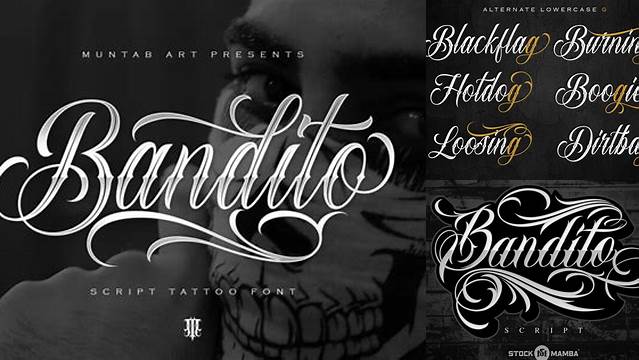
Introduction to Bandito Script Font
Hey guys! Are you on the hunt for a font that screams adventure and boldness? Well, look no further! Today, we’re diving deep into the world of the Bandito Script Font, a typeface that’s been making waves in the design community. This font isn't just another script; it's a statement. Its rugged, hand-drawn feel brings a raw, authentic touch to any project, making it a favorite for designers aiming to capture a sense of freedom and rebellion. Whether you're working on a poster, logo, or even a social media campaign, the Bandito Script Font can add that unique edge you've been searching for. But what exactly makes this font so special? Let’s explore its key features and why it might be the perfect choice for your next creative endeavor. The Bandito Script Font stands out with its dynamic strokes and imperfect lines, giving it a distinctly human touch. Unlike the polished, sterile fonts that dominate much of the digital landscape, Bandito Script Font embraces imperfection, adding character and depth to your text. This font isn't afraid to show its rough edges, making it ideal for projects that need a bit of grit and personality. Think about it: how many fonts do you come across that genuinely feel like they were crafted by hand? That's the magic of Bandito Script. It bridges the gap between digital design and traditional artistry. So, if you're ready to infuse your work with a sense of adventure and authenticity, the Bandito Script Font might just be your new best friend. Keep reading, because we’re about to delve into the nitty-gritty details of what makes this font tick, where you can download it for free, and how you can best use it in your designs. Let’s get started and unleash the Bandito Script Font in your projects! Remember, design is all about expressing yourself, and sometimes, the boldest statements come from the most unexpected places. This font is here to help you make those statements loud and clear.
When you're choosing a font, it's crucial to understand its features and how they align with your project’s needs. The Bandito Script Font has a lot going for it, especially if you're aiming for a look that's both rustic and contemporary. One of the standout features of Bandito Script is its hand-drawn aesthetic. This isn’t your typical polished script font; it has an organic, almost rebellious vibe that’s hard to ignore. The strokes are uneven, the lines have character, and the overall feel is one of authenticity. This makes it incredibly versatile for projects where you want to convey a sense of rawness or a personal touch. Think about using it for branding a coffee shop that roasts its own beans, or maybe for the title of an indie film. The possibilities are endless!
Another key characteristic is its legibility. While some script fonts can be challenging to read, especially in smaller sizes, Bandito Script Font strikes a good balance between style and readability. The letters are distinct enough to be easily deciphered, yet the font retains its unique flair. This is super important because, let’s face it, a beautiful font is useless if no one can read it! You can confidently use Bandito Script Font for headings, subheadings, and even shorter paragraphs without worrying about sacrificing clarity. Plus, it looks fantastic in both digital and print formats, so you’re covered no matter where your design ends up. The font also boasts a full set of uppercase and lowercase letters, numbers, and punctuation, giving you plenty of flexibility in your designs. You’re not stuck with just one style; you can mix and match to create different effects and emphasize certain words or phrases. The lowercase letters have a particularly charming quality, with their playful loops and curves adding to the font’s overall appeal. This versatility means you can use Bandito Script Font for a wide range of projects, from posters and flyers to website headers and social media graphics. Whether you’re a seasoned designer or just starting out, the Bandito Script Font offers a unique blend of style and practicality that’s sure to make your work stand out. So, keep these key features in mind as you explore the font further, and get ready to see how it can transform your creative projects!
Design Ideas and Use Cases
Now that you've got the Bandito Script Font installed and ready to go, let's talk about how you can actually use it! This font is incredibly versatile, but it really shines in certain types of projects. Think about where its rugged, hand-drawn aesthetic can make the most impact. Whether you're a seasoned designer or just starting out, having some solid ideas in mind can help you maximize the font's potential. One of the most popular use cases for Bandito Script Font is in branding and logo design. If you're working on a brand that needs to convey a sense of authenticity, adventure, or a bit of an edge, this font is a fantastic choice. Imagine a logo for a coffee shop with a rustic vibe, a craft brewery, or an outdoor adventure company. The font’s bold strokes and imperfect lines give it a handmade feel, which can be incredibly appealing to customers looking for something unique and genuine. It’s not just about the logo itself, either. You can extend the use of Bandito Script Font to other branding materials, like business cards, packaging, and website headers, to create a cohesive and memorable brand identity. Another great area to use this font is in poster and flyer design. Need to create a poster for a music festival, a local event, or a special promotion? Bandito Script Font can really make your design pop. Its eye-catching style is perfect for grabbing attention, and its legibility means your message will be clear and easy to read. Try pairing it with a simple sans-serif font for body text to create a balanced and visually appealing layout. For social media enthusiasts, Bandito Script Font is a perfect choice for creating engaging content. Whether you’re designing Instagram stories, Facebook ads, or Twitter graphics, this font can add a touch of personality and flair to your posts. Use it for headings, quotes, or special announcements to make your content stand out in a crowded feed. Remember, consistency is key on social media, so try to use the font in a way that aligns with your overall brand aesthetic. And let’s not forget about merchandise design. Bandito Script Font looks amazing on t-shirts, mugs, tote bags, and other merchandise items. Its bold style is perfect for creating designs that people will love to wear and use. If you’re designing merchandise for a band, a brand, or a special event, consider using this font to add a touch of personality and style. No matter what type of project you’re working on, the key is to experiment and have fun with the Bandito Script Font. Try different combinations, pairings, and layouts to see what works best for your specific needs. With its versatility and unique style, this font is sure to become a go-to choice for all your design projects.
Tips for Using Bandito Script Effectively
So, you’re ready to unleash the Bandito Script Font in your designs, but how do you make sure you’re using it effectively? Guys, choosing the right font is just the first step; it's how you use it that truly matters. Let’s dive into some tips and tricks to help you maximize the impact of this awesome font and create designs that really stand out. First and foremost, pair Bandito Script Font wisely. While it’s a fantastic font on its own, it often works best when paired with a complementary font. Since Bandito Script Font is a bold and expressive script, it’s usually a good idea to pair it with a simpler, more neutral font for body text. Think about a clean sans-serif font like Open Sans, Montserrat, or Lato. These fonts provide a nice contrast to the script and ensure that your overall design is balanced and easy to read. Avoid pairing Bandito Script Font with another script font, as this can often create a cluttered and overwhelming look. Next up, consider the size and spacing. Bandito Script Font looks great in larger sizes, especially for headings and titles. Its bold strokes and unique letterforms really shine when they have room to breathe. However, using it in smaller sizes or for long blocks of text can make it difficult to read. Be mindful of the spacing between letters and lines as well. Adjust the kerning and leading to ensure that the text is legible and visually appealing. Too little spacing can make the text look cramped, while too much can make it feel disconnected. Another key tip is to use Bandito Script Font sparingly. While it’s tempting to use it for everything, sometimes less is more. Overusing a script font can dilute its impact and make your design feel busy. Instead, try using it strategically for key elements like headings, quotes, or logos. This will help draw attention to those elements and create a more cohesive and visually appealing design. Think about the context and message you’re trying to convey. Bandito Script Font has a distinct personality—it’s rugged, bold, and a bit rebellious. This makes it perfect for projects that need to convey a sense of authenticity, adventure, or a personal touch. However, it might not be the best choice for more formal or corporate designs. Consider the overall tone and style of your project and make sure the font aligns with your message. Lastly, experiment with different styles and variations. Bandito Script Font may come with different weights or styles, such as bold or italic. Try playing around with these variations to see how they can enhance your design. You might find that the bold version is perfect for headings, while the regular version works well for subheadings. Don't be afraid to get creative and try new things. Remember, the best way to master any font is to practice and experiment. So go ahead, unleash the Bandito Script Font in your projects and see what amazing designs you can create!